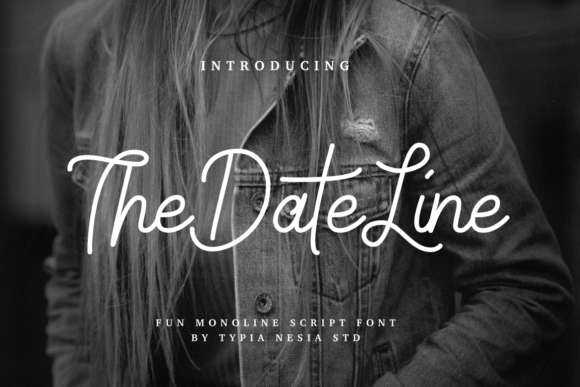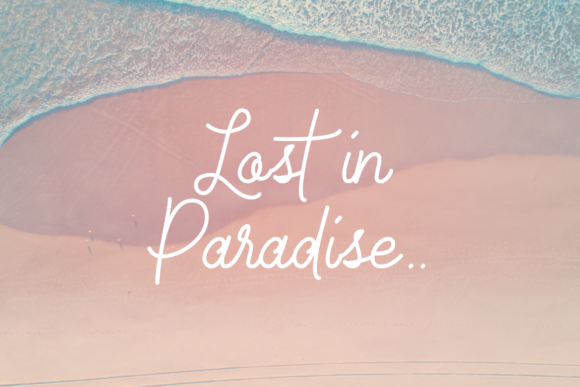
The Date Line Font
About The Date Line Font
The Date LineĀ is a Fun Monoline Script font with a casual look and a signature style.
The Date Line is perfect for your upcoming projects. This script is casual and clean which makes is perfect for many designing needs such asĀ logos, blog headers, wedding invitations, branding, t-shirts, posters & many more type of projects!